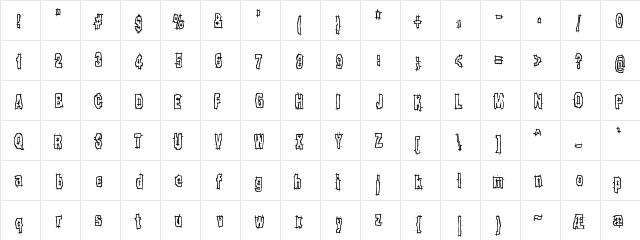
Hack & Slash BRK Regular
| Foundry | ƎIGMA FONTS |
| Designer | ƎIGMA FONTS - Brian Kent |
Hack & Slash BRK is a composed and adaptable typeface that performs quietly and consistently across a wide range of design contexts.